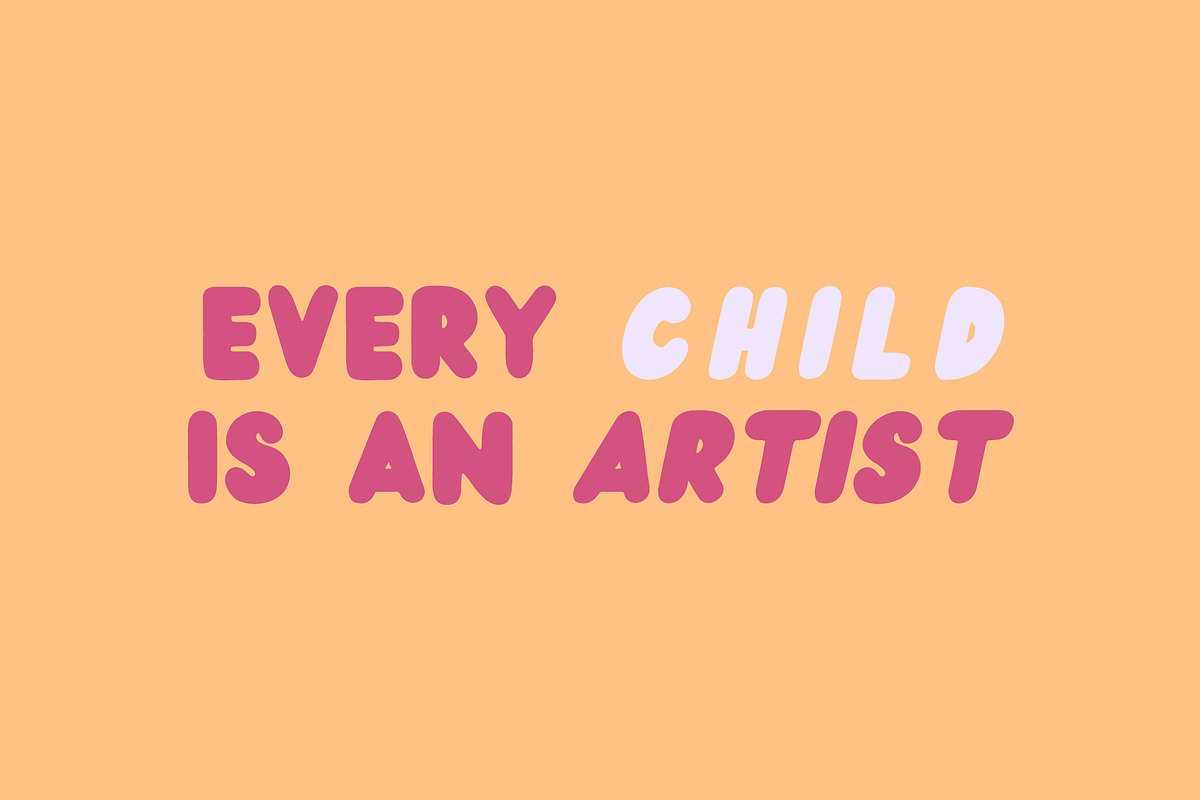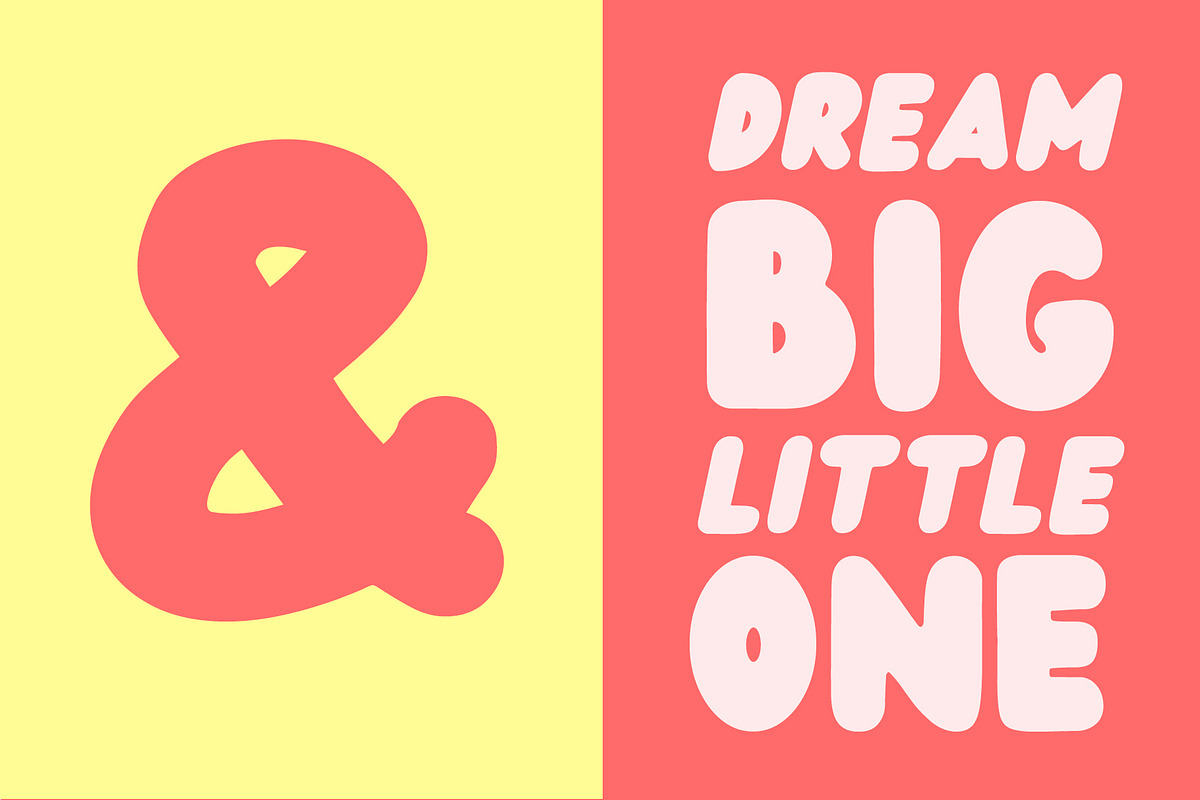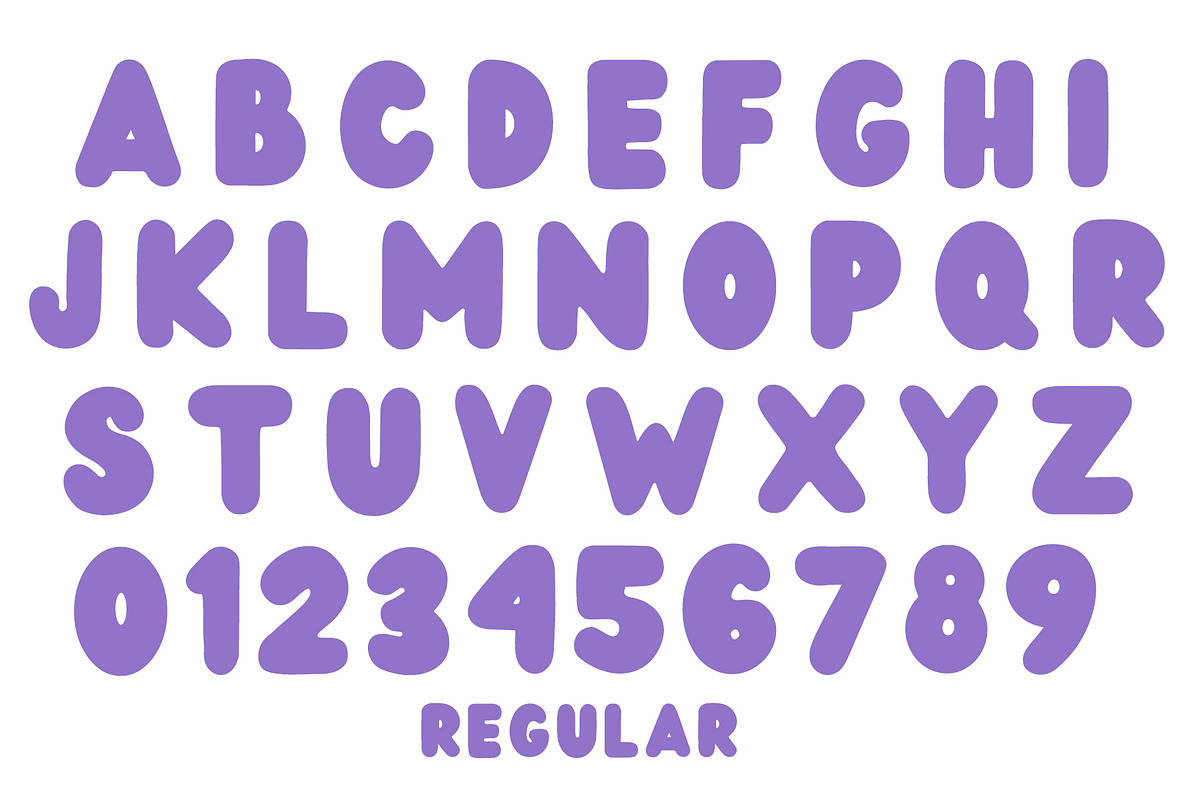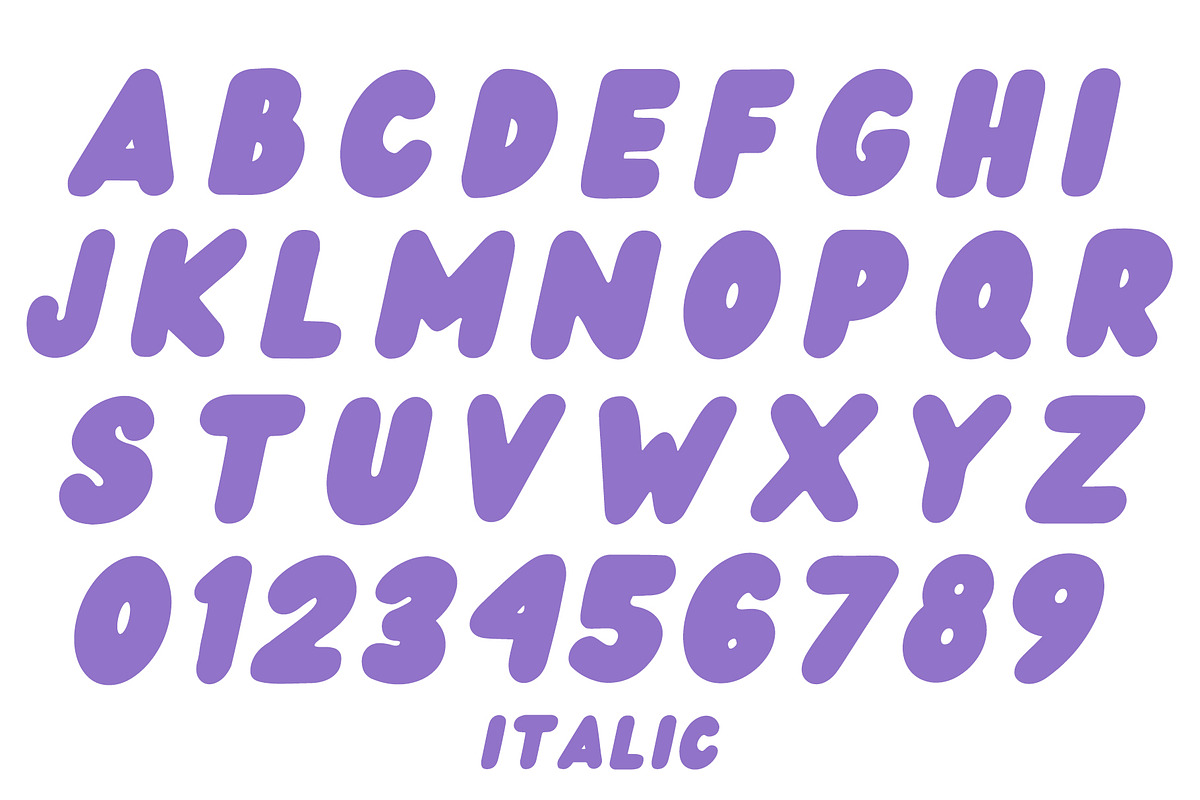
Wedges - Rounded Font
Introducing, WEDGES - a Fun Rounded Weight Font !
Bold and plumpy rounded typeface. Never aged style. Versatile yet cute, stylish, and delicate handwritten font. Wedges has 2 versions, Regular and Italic.
All in caps character set
Regular and Italic version
Wedges - Rounded Font by Dm Studio fits naturally into Branding, posters, packaging, typography.